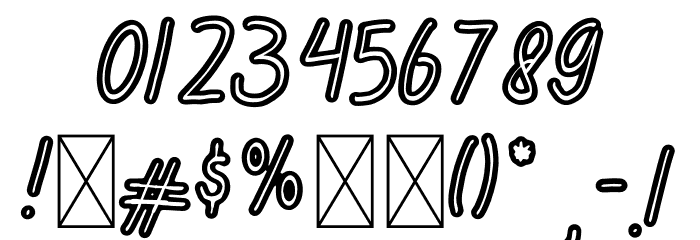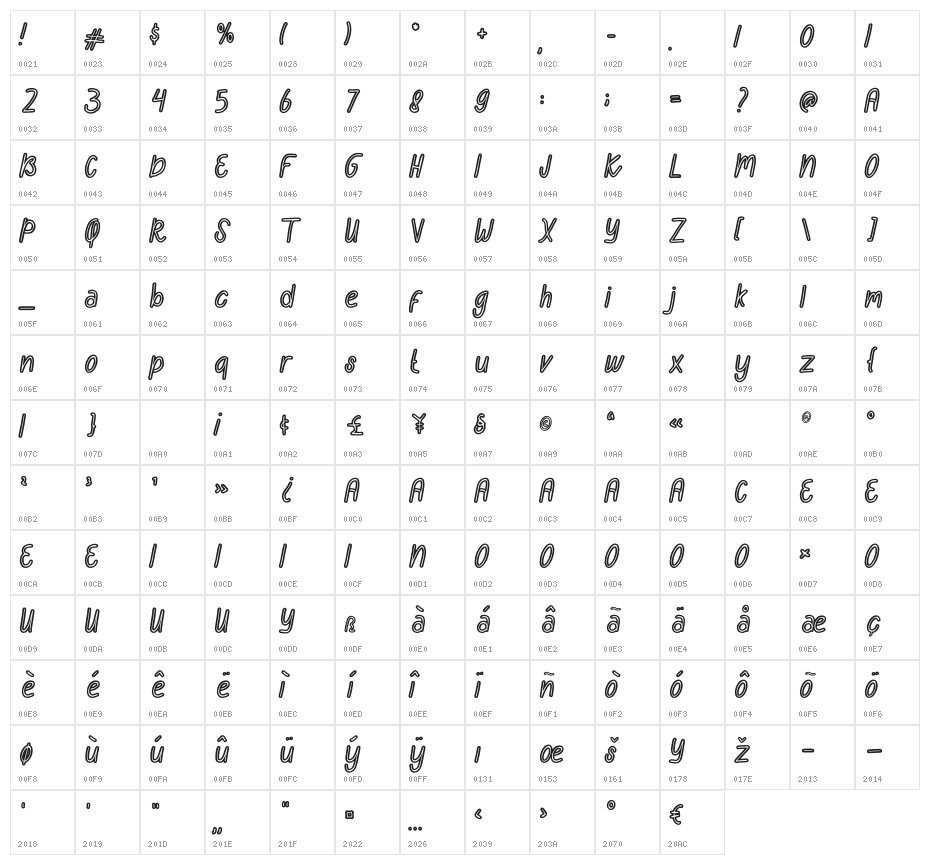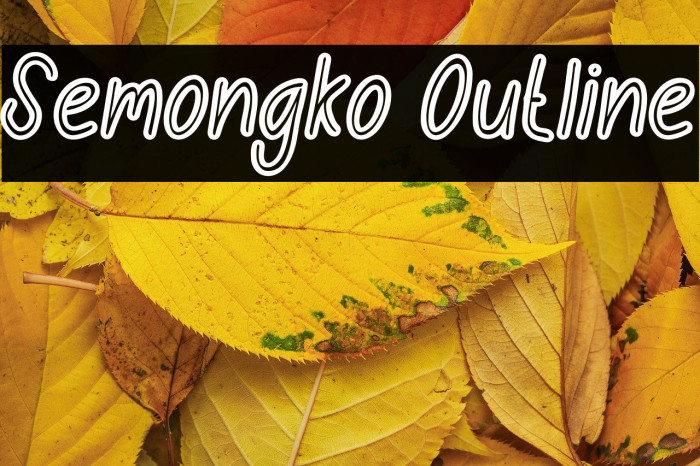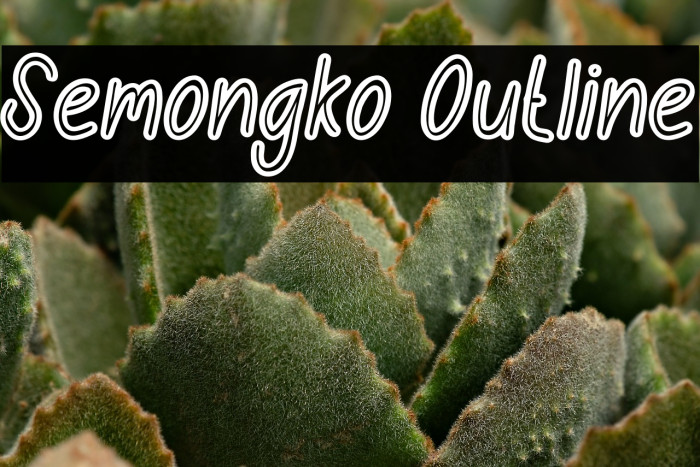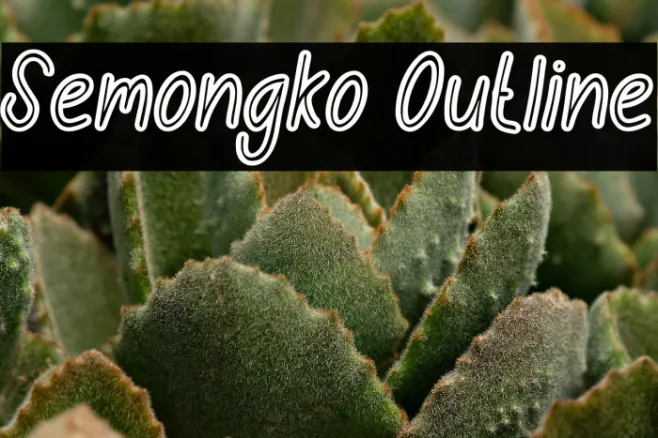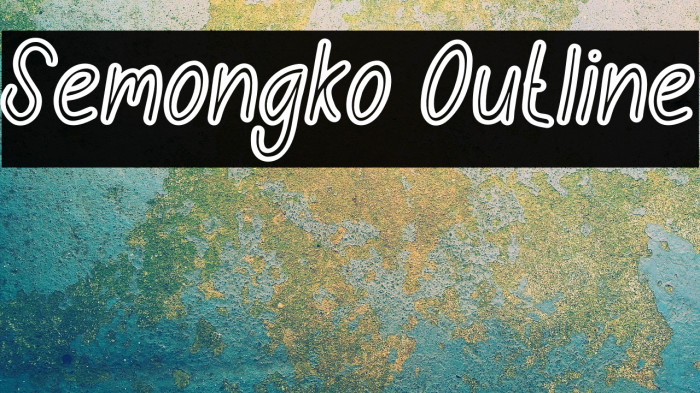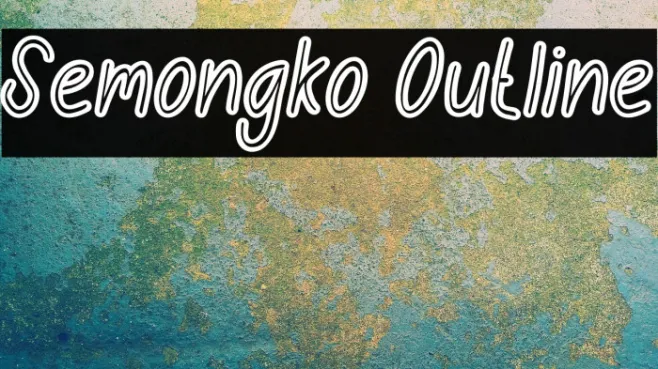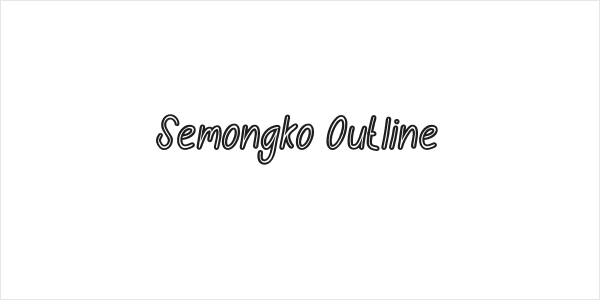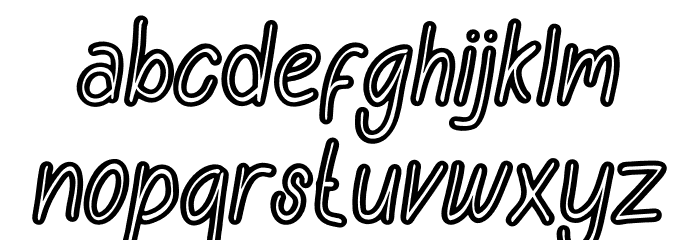
Semongko Outline Font
Semongko Outline Description
This font features a playful and dynamic outline style, characterized by its bold and rounded letterforms. Each character is outlined, giving it a distinctive and eye-catching appearance. The uppercase and lowercase letters maintain a consistent flow, with smooth curves and a slightly informal touch. The numbers and special characters follow the same outlined style, ensuring uniformity across the font. This design is ideal for projects that require a fun and engaging aesthetic, such as children's books, posters, and creative branding.
| Overall Style | Playful, Modern |
| Proposed Projects | Ideal for children's books, playful posters, creative branding, and eye-catching headlines. |